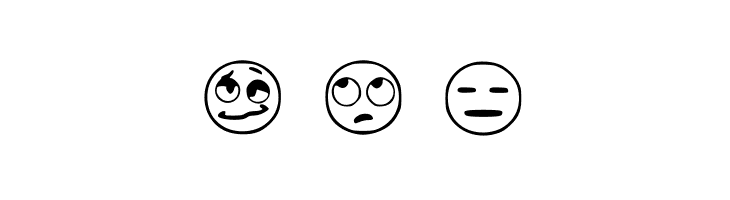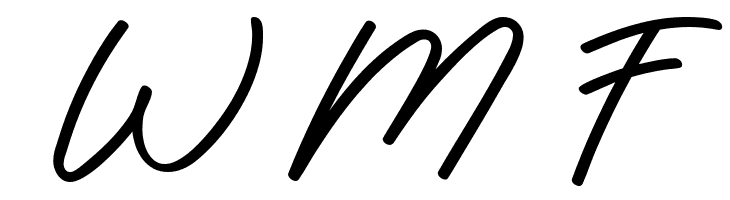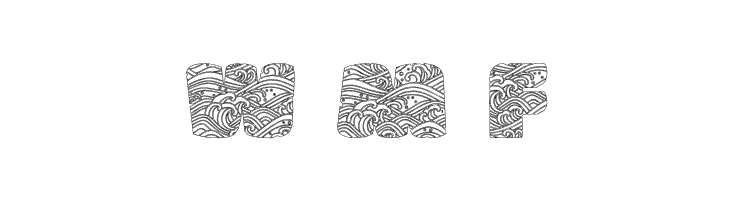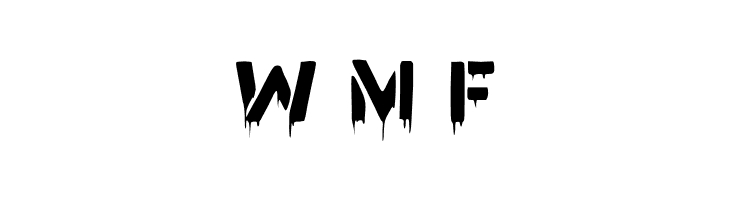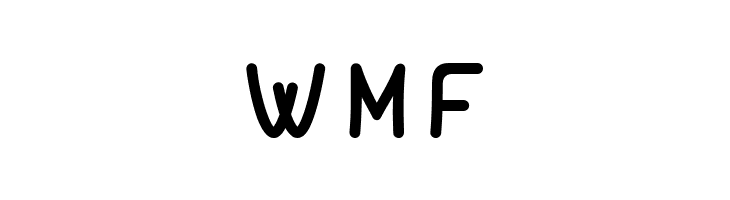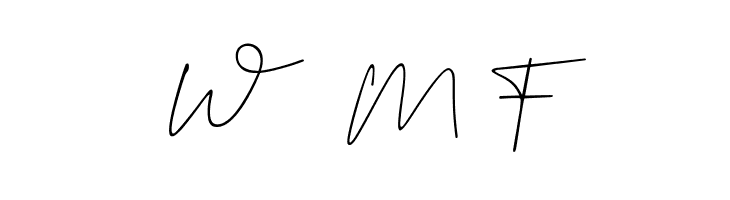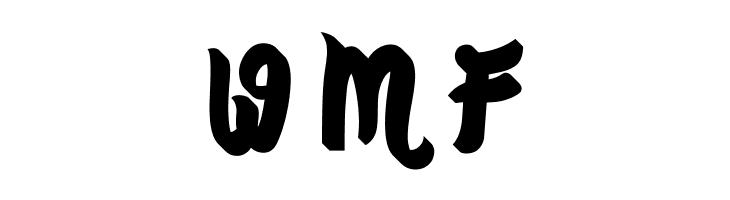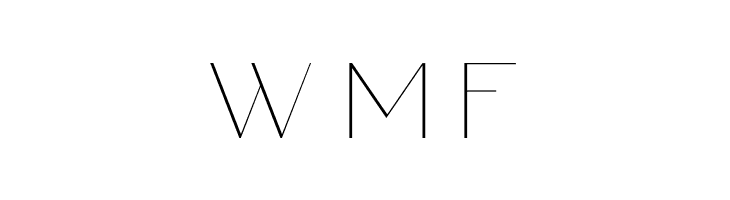
Expressive, outlined emoji icons with bold lines and varied emotions.
A playful, hand-drawn font with bold, irregular characters and a cartoonish style.
A flowing, cursive font with a relaxed, handwritten style.
A fluid and elegant script font with smooth, flowing lines.
A decorative font with intricate wave patterns in each character.
A bold, dripping font with a stencil-like design, ideal for edgy and horror-themed projects.
A playful, rounded font with bold, smooth curves and a whimsical charm.
A casual, handwritten cursive font with a flowing and personal touch.
A bold, expressive handwritten font with flowing strokes and a playful style.
A modern, minimalist font with clean, geometric lines and consistent stroke width.